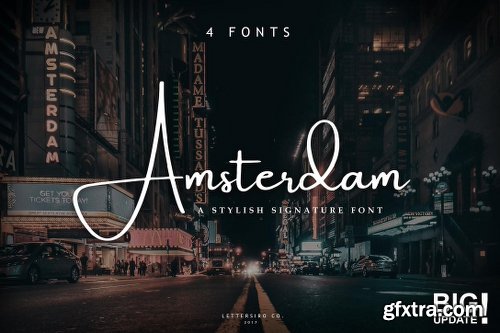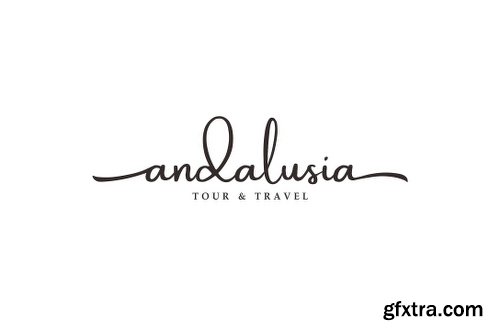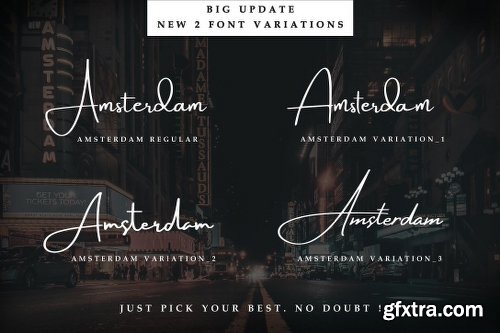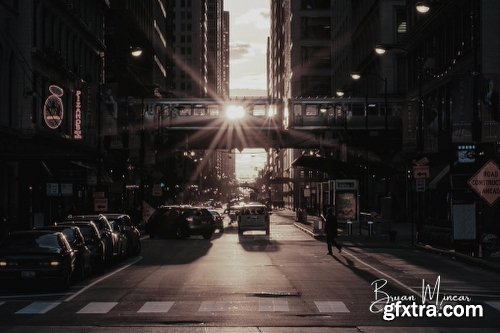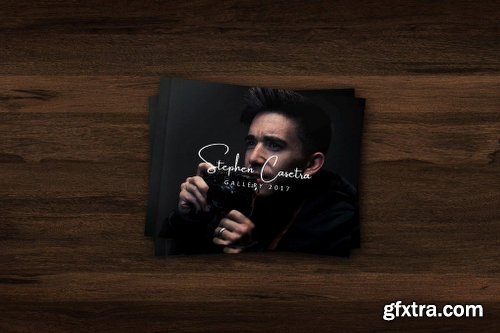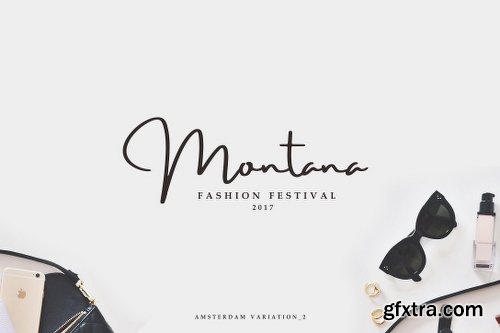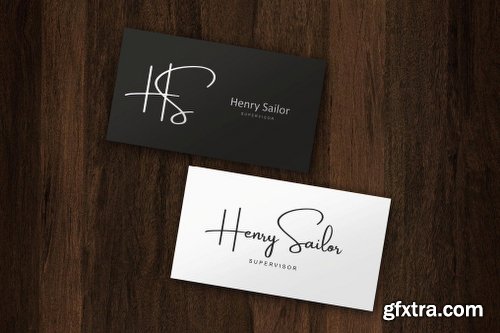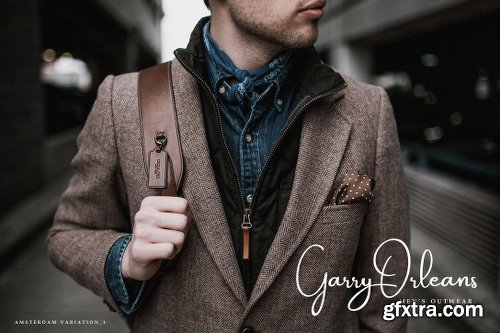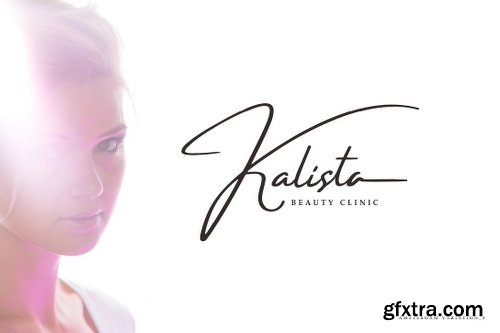
The Amsterdam font is a simple font, comes with alternate font and some ligatures. We keep this font looks elegant, readable, stylish, and catchy.
Each font has :
Stylistic alternate
Lowercase Initial Form (titl) and final form (swsh)
Ligature
Multilingual Support